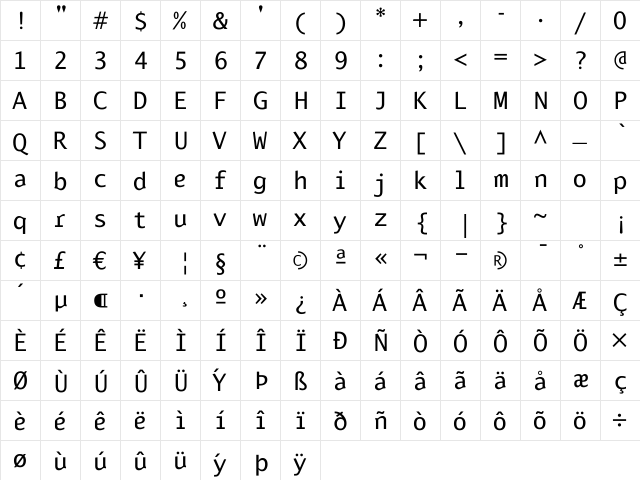
Betabet SansRegular Regular
Design Context for Betabet SansRegular Typeface
Betabet SansRegular offers clean, dependable letterforms without strong stylistic allegiance, making it a practical choice for designers who need flexibility.